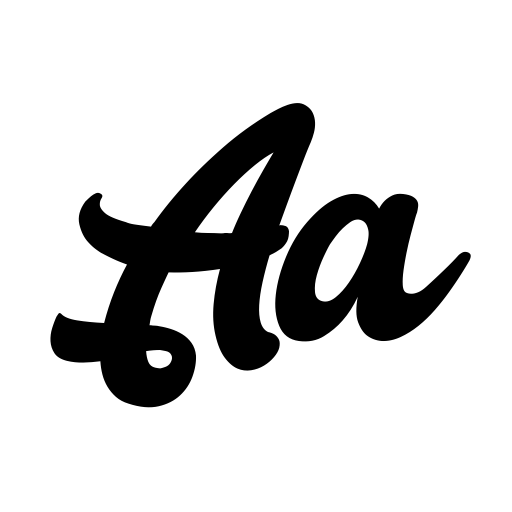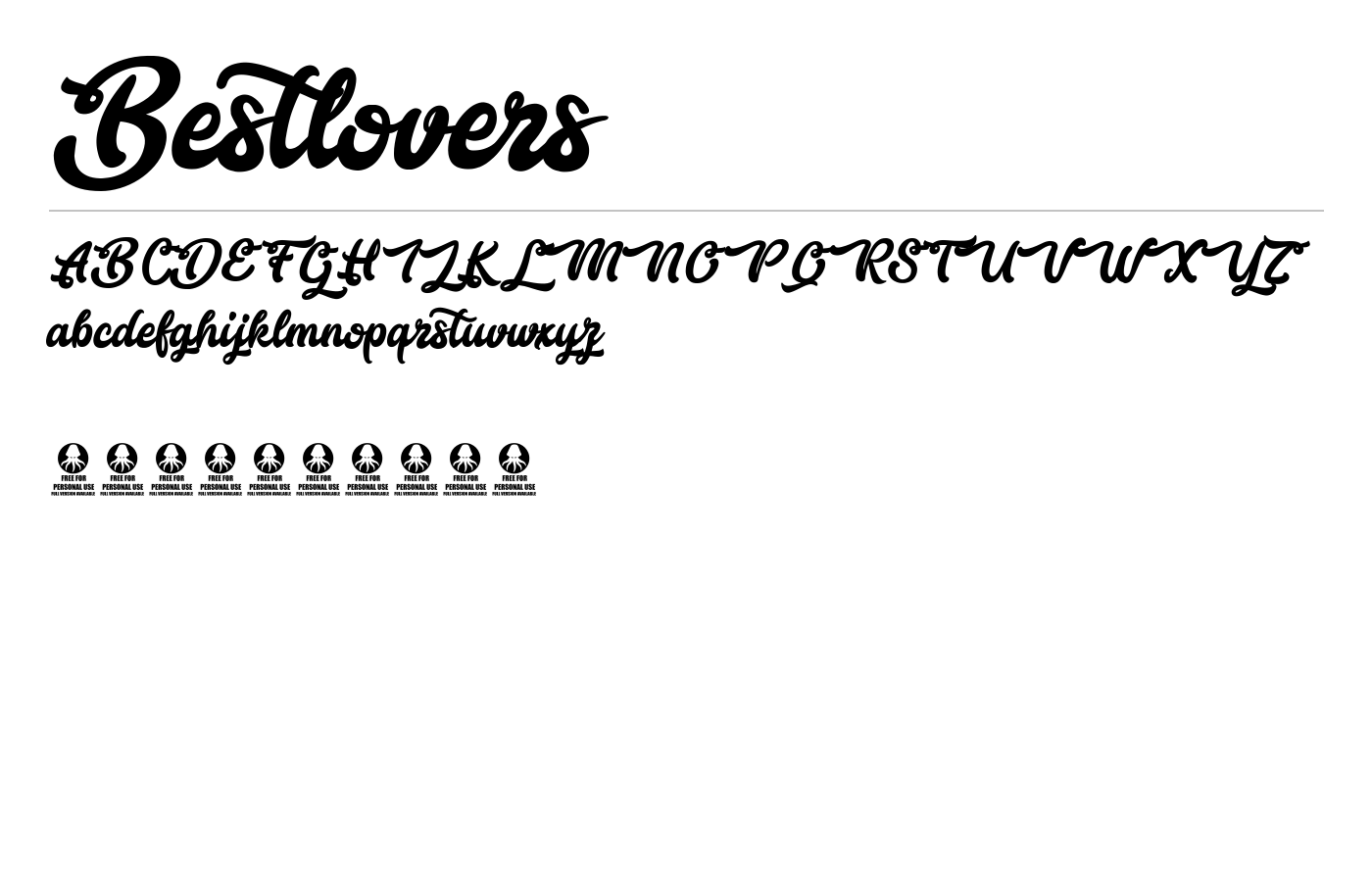
Bestlovers is a bold, playful script font that features thick, smooth strokes with connected letterforms, giving it a warm and friendly handwritten feel. Its lively curves and unique, decorative touches make it perfect for creative branding, greeting cards, and fun headlines where a personal, inviting touch is desired. This font works especially well in designs aiming for a casual yet stylish look.
Bestlovers Font
About Bestlovers Font
| Font family | Bestlovers Font |
| Designer | Octotype |